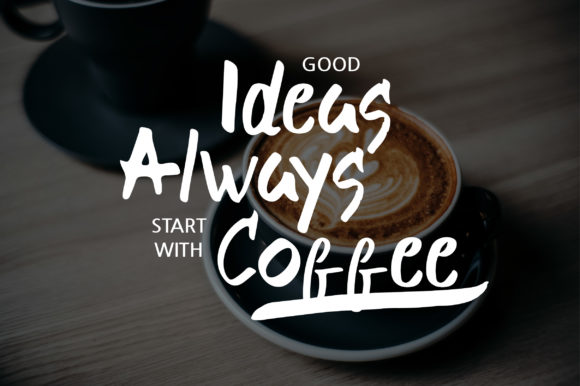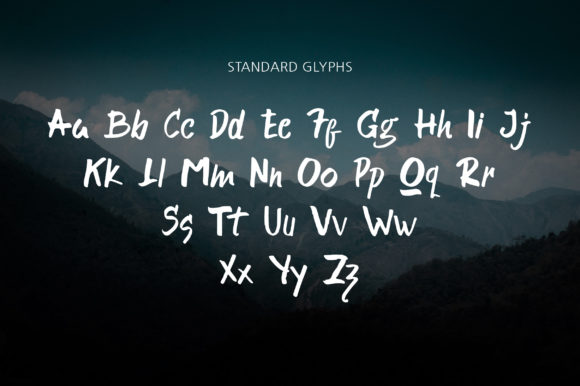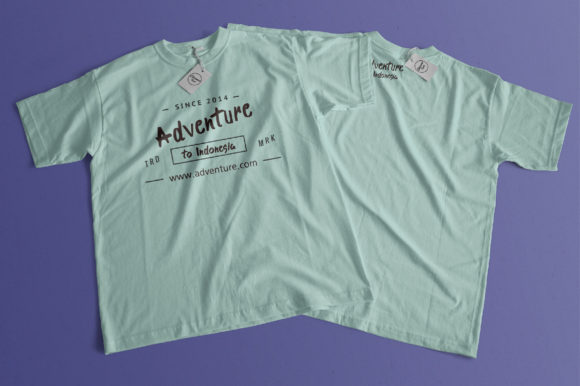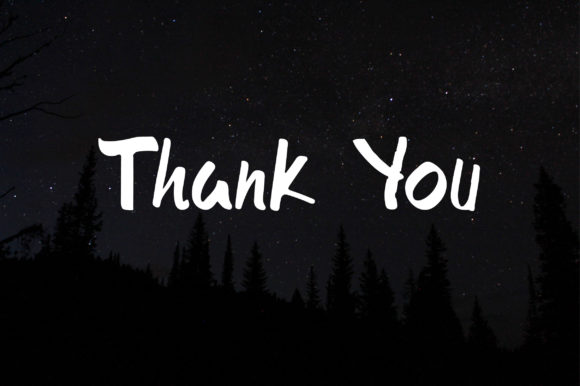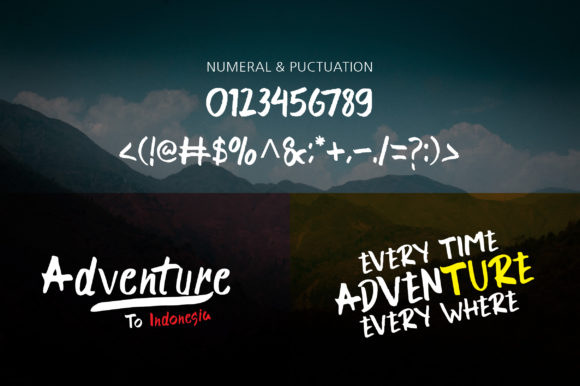
Bracket Font
About Bracket Font
Bracket is a font that exudes neatness, trendiness, and a brushed handwritten charm. With its stylish appeal, this font becomes an invaluable asset to your fonts’ library, elevating any creation with its versatile and contemporary touch.
The neat, trendy, and brushed handwritten style of Bracket brings a sense of sophistication and modernity to your designs. Each letter carries the smooth and artistic touch of a brushed script, making your work stand out with a touch of trendy character and elegance.
With Bracket as your creative tool, you have the freedom to explore various design ideas. Whether you’re working on projects that require a clean and trendy vibe, creating contemporary and stylish designs, or adding a modern element to your work, Bracket adapts effortlessly to bring a sense of versatility and flair to your designs.
Embrace the neat and brushed style of Bracket and witness how it transforms your creations into works of art. Its trendy and contemporary nature adds a touch of authenticity, making your designs truly captivating and impactful.
Discover the joy of creating with Bracket as your trusted companion. Let its handwritten appearance be the key to unlocking your creativity and infusing your work with a sense of modern elegance and sophistication.
Whether you’re designing for personal projects or professional endeavors, Bracket is the font that adds that extra touch of flair and trendiness to your creations. Embrace the neat and brushed charm of Bracket and notice how it enhances the appeal and impact of your designs, making them truly special and unforgettable.
Let Bracket be the font that sparks your inspiration and brings a touch of modernity and sophistication to your designs. Experience the magic of Bracket and witness how it elevates your creative projects, making them truly stylish and filled with a sense of contemporary character and flair.